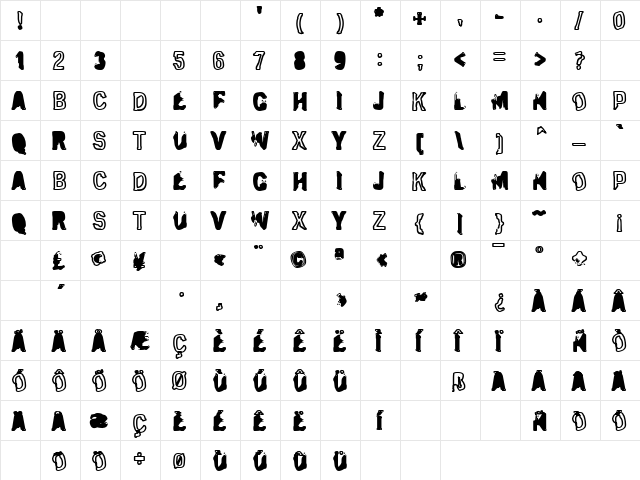
Eclipsed Moon Outline
Design Context for Eclipsed Moon Typeface
Eclipsed Moon brings ornamental detail and strong personality to headlines and identities, where visual impact matters more than quiet functionality.
Font Pairing: Pair with a clean neutral sans-serif for body copy to let Eclipsed Moon's character lead without overwhelming the composition.
Pro Tip: Treat Eclipsed Moon as the centrepiece of your typographic hierarchy. One strong heading set in a decorative face can carry an entire layout.